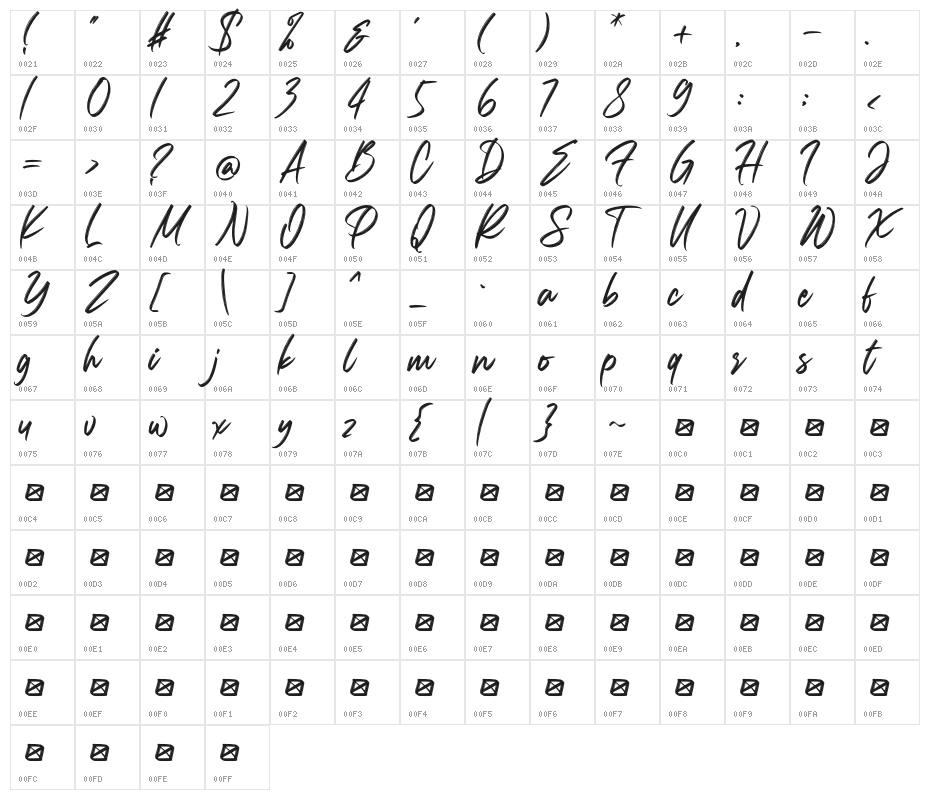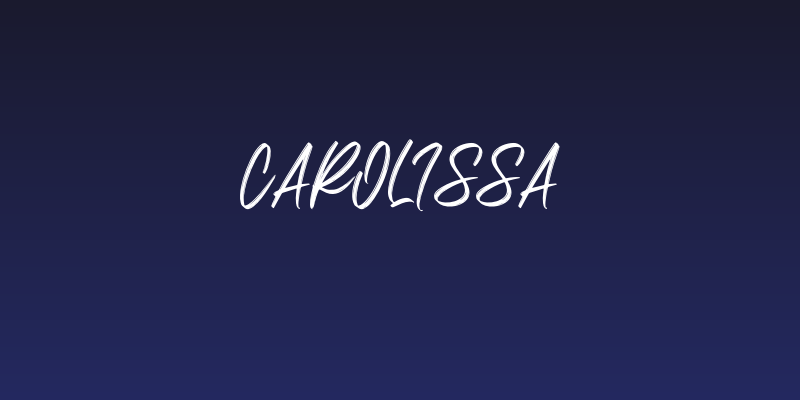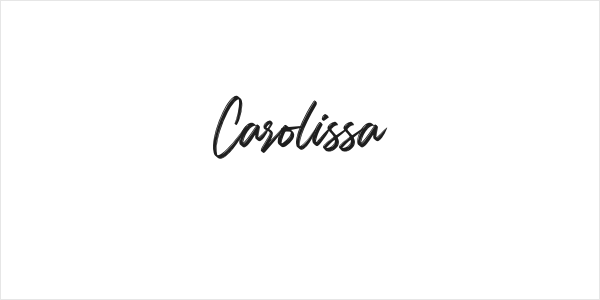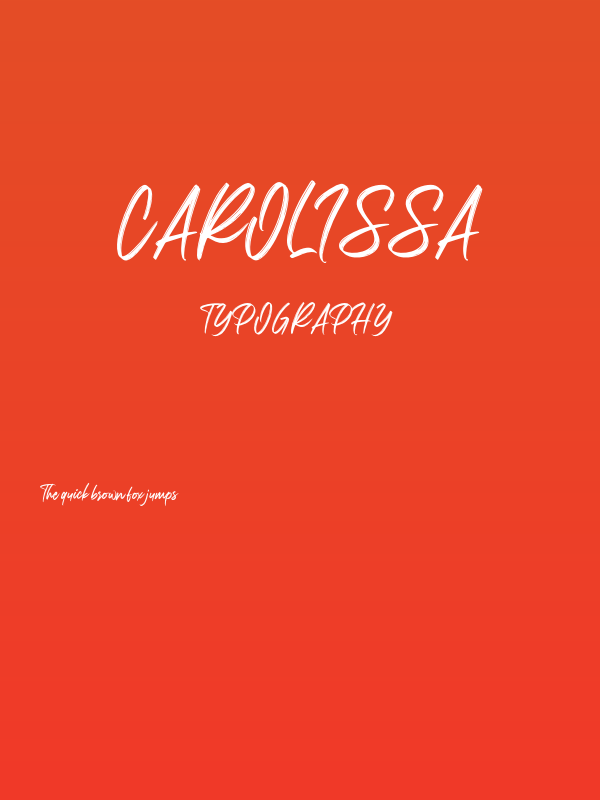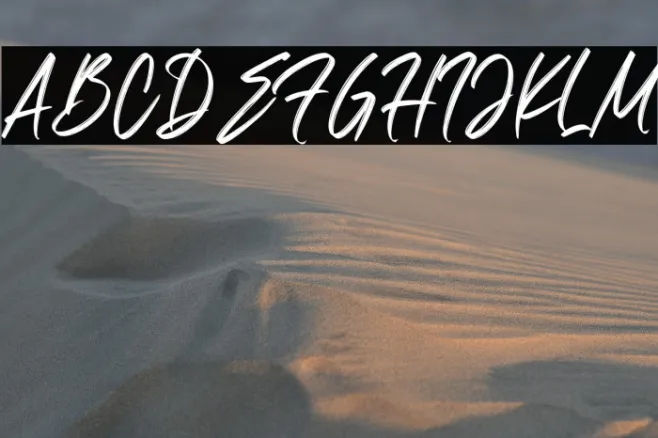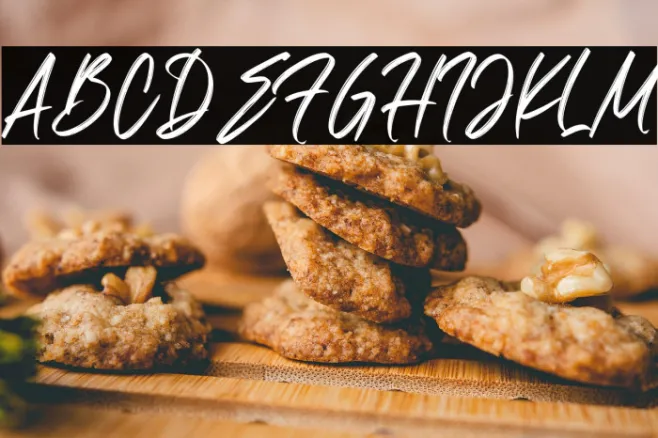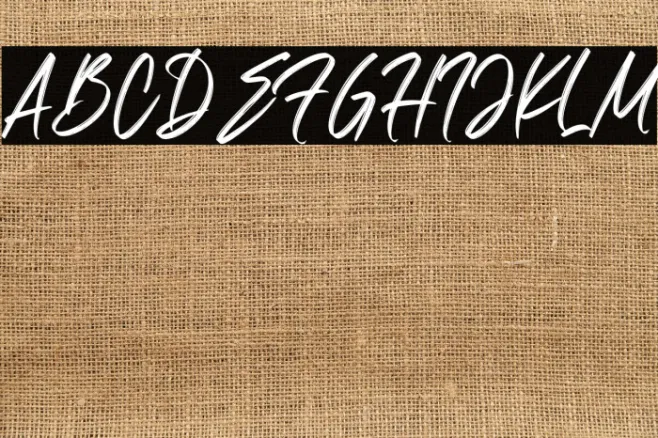
Carolissa Font
Carolissa Description
This font features a dynamic and expressive handwritten style, characterized by fluid strokes and a natural flow. The uppercase letters are bold and slightly slanted, giving a sense of movement and energy. Lowercase letters maintain a consistent rhythm with smooth curves and loops. The numerals are distinct and easy to read, complementing the overall style. Special characters are integrated seamlessly, maintaining the handwritten aesthetic. This font exudes a personal touch, making it ideal for projects that require a human element.
| Proposed Projects | Ideal for personal branding, invitations, greeting cards, and creative projects that require a personal touch. |